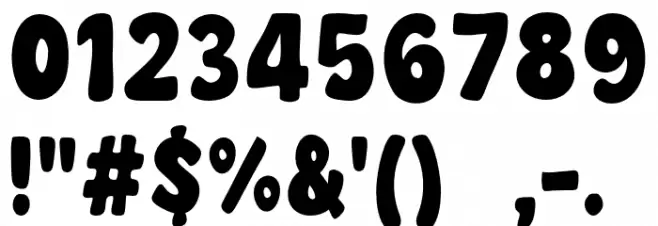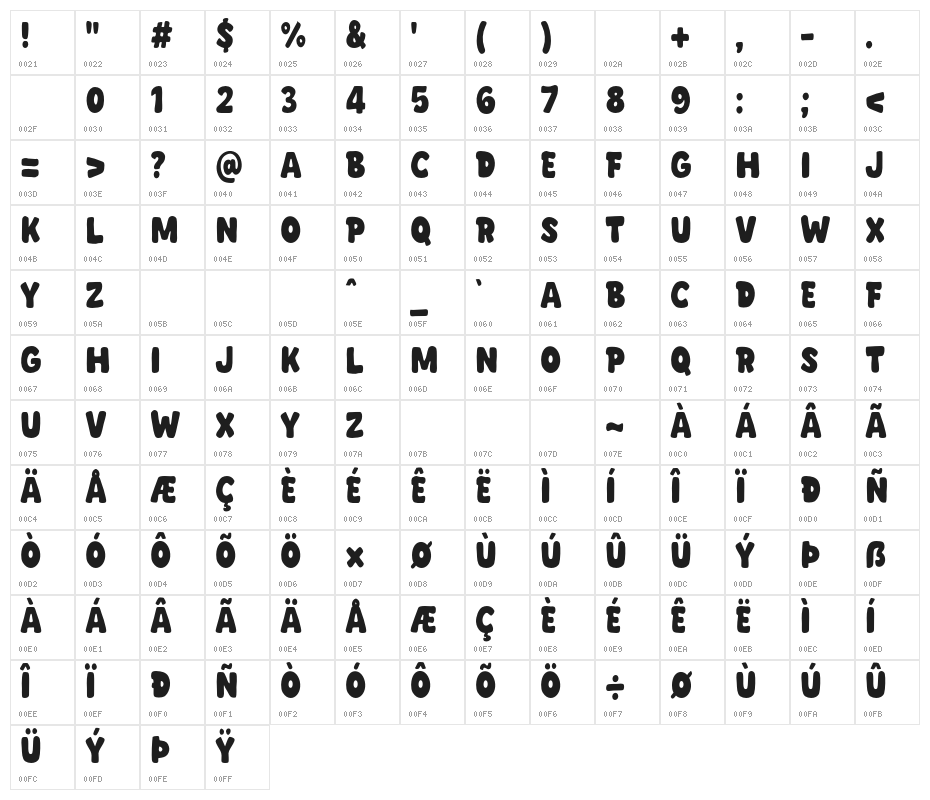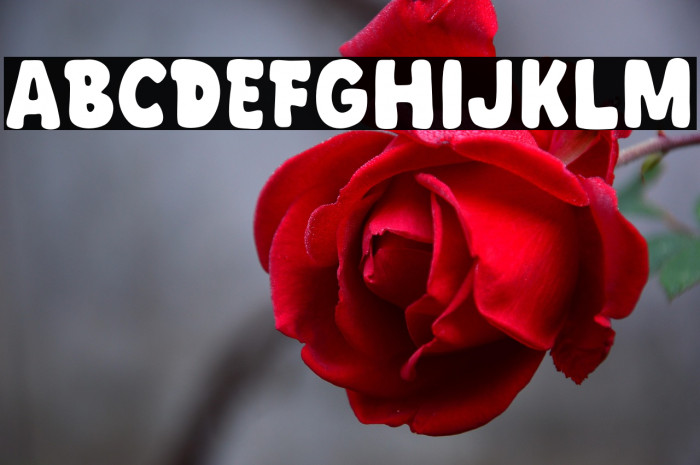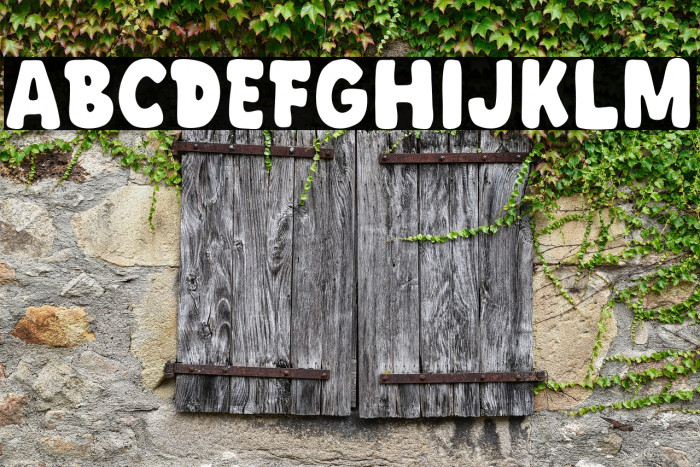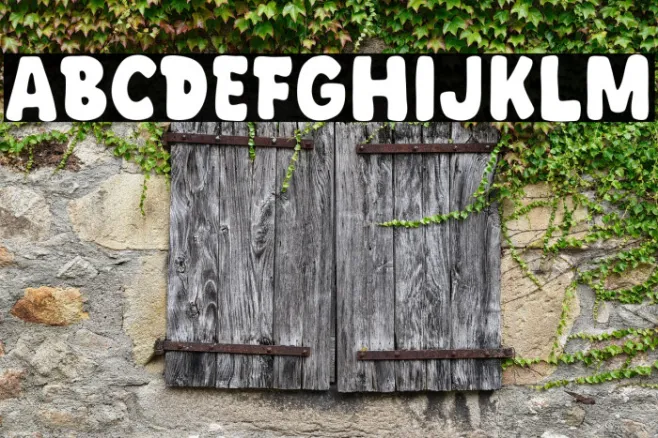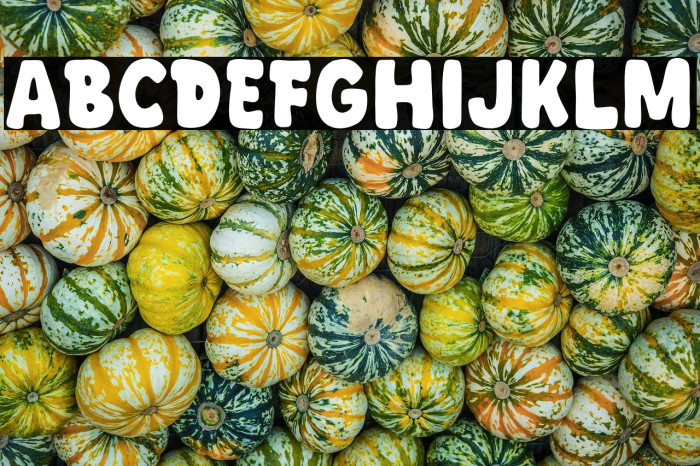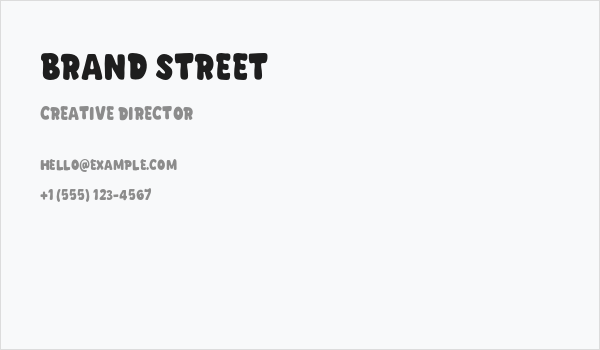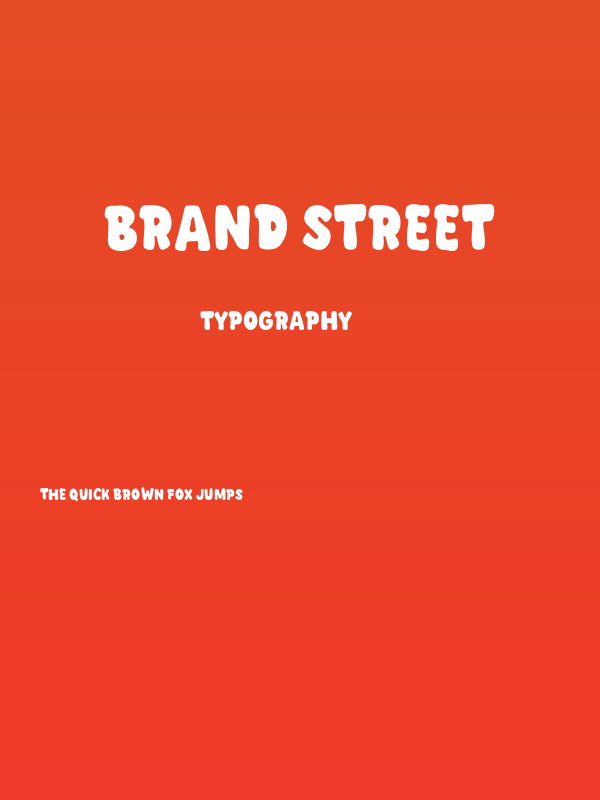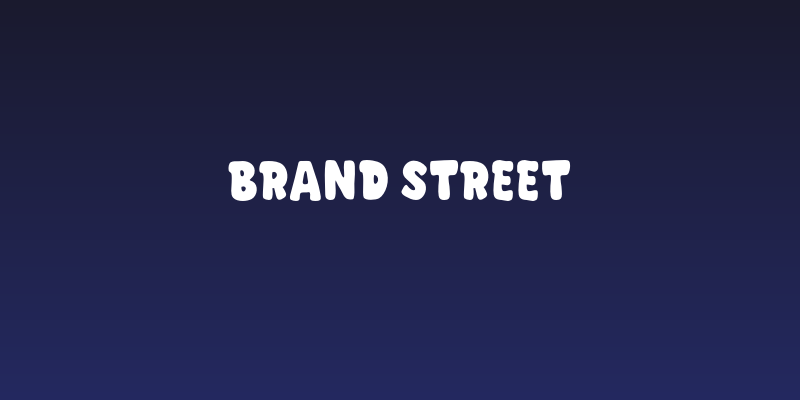
Brand Street Font
Brand Street Description
This font features a bold and playful style with rounded edges and a slightly irregular form, giving it a hand-drawn appearance. The characters are thick and substantial, making them highly visible and impactful. The uppercase and lowercase letters maintain a consistent weight, contributing to a cohesive look. The numbers and special characters share the same boldness and rounded design, ensuring uniformity across all glyphs. This font's style is both approachable and energetic, making it suitable for a variety of creative applications.
| Overall Style | Playful, Hand-drawn |
| Proposed Projects | Ideal for children's books, playful branding, posters, and social media graphics. |